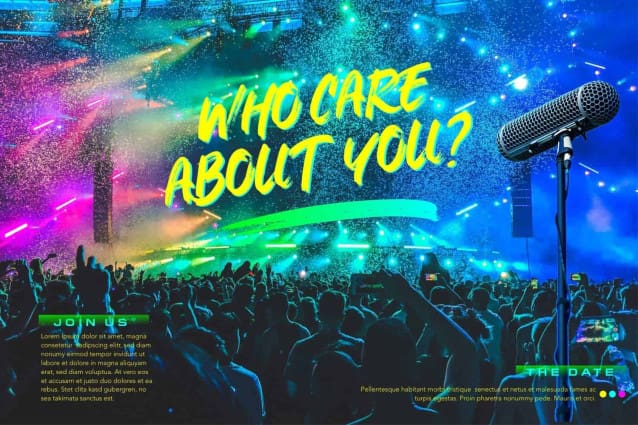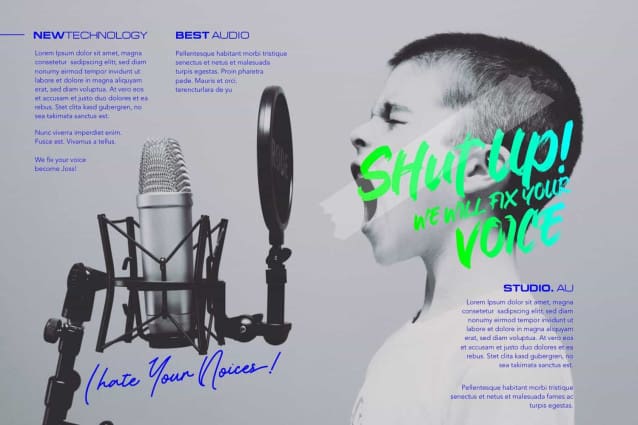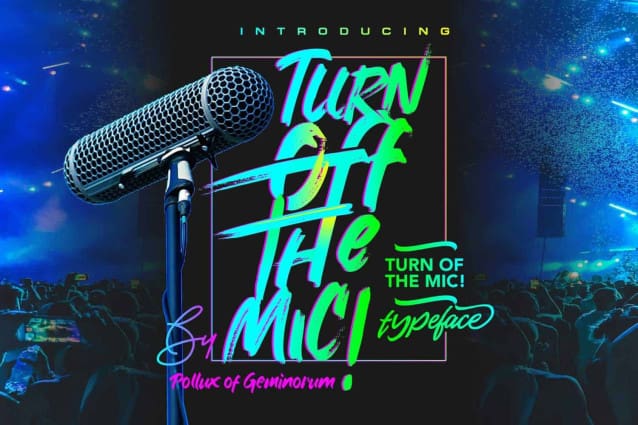
Turn Off The Mic! Font
Turn off the Mic! Font is a cool, brushed display font, with an urban art vibe. This font is suitable for designs such as t-shirts, sportswear, logos, advertisements, clothing, and more.